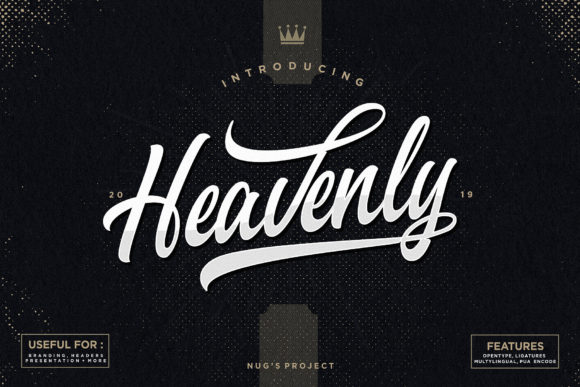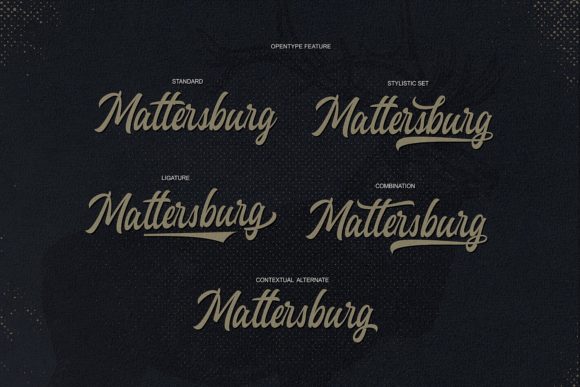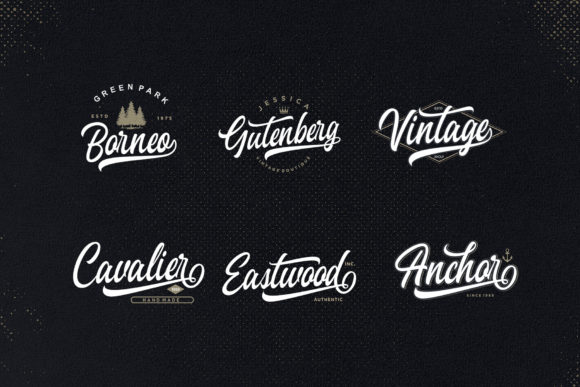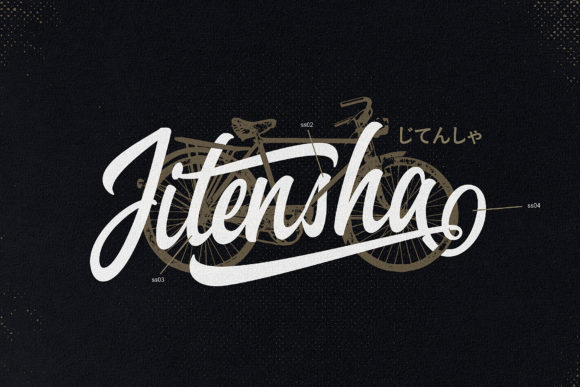
Heavenly Font
About the Heavenly Font
Elevate your designs with Heavenly Font, a font that combines sophistication with readability. The Heavenly is a striking script font which brings lots of personality to your designs. It includes flowing characters which are ideal for creating an attractive message.
It can be used for posters, branding, advertising, and much more!
Heavenly Font’s flowing characters are best suited for headlines, short impactful statements, and branding applications where a touch of elegance and sophistication is desired. It works exceptionally well for logos, short marketing slogans, and invitations, adding a touch of personality without overwhelming the design. However, its script nature makes it less suitable for body text or UI elements; the intricate details can become illegible at smaller sizes and hinder readability in longer passages.
For optimal visual harmony, pair Heavenly Font with a clean sans-serif like Montserrat for a modern feel, or a classic serif such as Garamond for a more traditional and refined aesthetic. A geometric sans-serif such as Futura could also create a striking contrast, highlighting Heavenly Font’s organic forms.
The font exudes a sophisticated yet approachable personality, lending itself well to brands aiming for a balance of elegance and approachability—think high-end fashion, luxury goods, or creative studios. Avoid pairing it with overly playful or heavily textured fonts, which could clash with its refined quality.
Heavenly Font Usage Examples
Heavenly Font Example